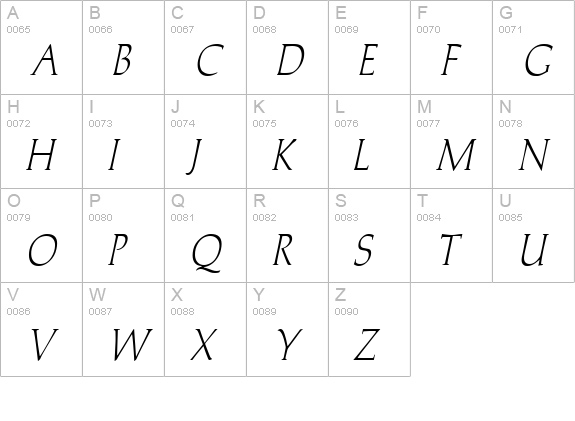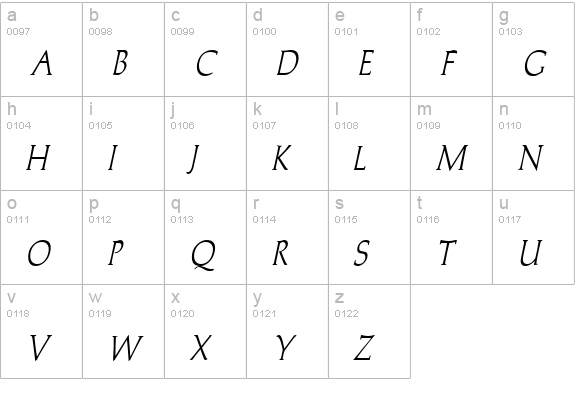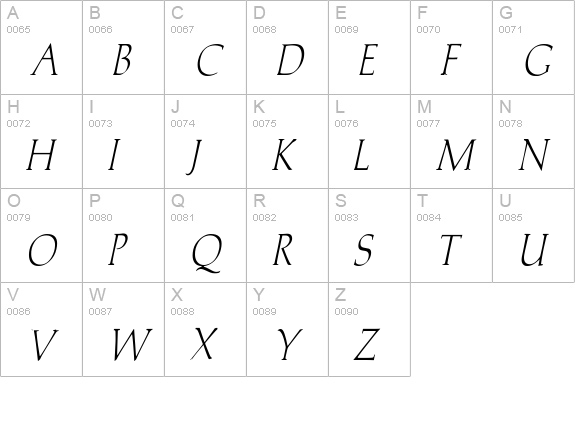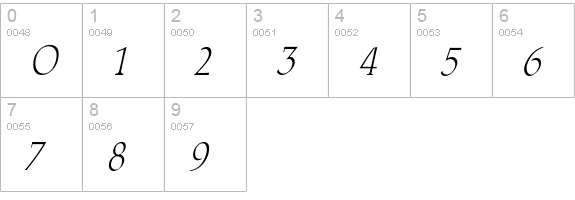
Trajan'sCapsCondensed Italic Font Details
Trajan'sCapsCondensed Italic is a distinctive, italic variant in the Trajan'sCapsCondensed typeface family \xE2\x80\x94 well suited to design and typography projects.
Trajan'sCapsCondensed Italic font is a stunning display typeface that exudes elegance and sophistication. With its sleek and slanted letterforms, this font adds a touch of sophistication to any design project. Designed with careful attention to detail, Trajan'sCapsCondensed Italic font strikes the perfect balance between classic and contemporary styles. Its condensed form allows for more efficient use of space, making it ideal for headlines, titles, and branding materials. The italicized version of Trajan'sCapsCondensed adds a sense of dynamic movement to the already impressive font. The slanted angle creates a sense of energy and flair, making it perfect for adding emphasis or creating stylish typography. One of the best things about Trajan'sCapsCondensed Italic font is that it is freely available to download at FontsMarket.com. This means that you can use it in your personal or commercial projects without any restrictions. Whether you're a graphic designer, web developer, or simply a typography enthusiast, this font is a valuable addition to your collection. With its timeless beauty and versatility, Trajan'sCapsCondensed Italic font will effortlessly elevate the visual impact of your designs. Whether you're designing a logo, creating a poster, or crafting a website, this font will make your text stand out and captivate your audience. Its elegance and sophistication will leave a lasting impression, making it a must-have font for any design project.